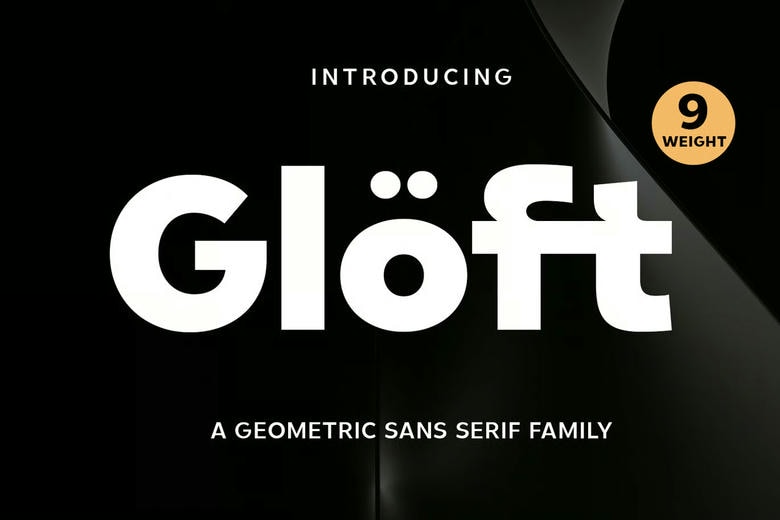
Gloft Font Family
Gloft Font Family – Geometric Sans Serif Font Family is a contemporary typeface style that is constructed on accuracy, balance and flexibility. Created to suit the needs of modern visual communication, Gloft gives an impression of a straightforward and confident image that is professional and eternal at the same time. Its geometrical design offers a good basis of designs that demand clarity and impact.
The font family has a total of nine well-designed weights that enable designers to easily blend in terms of their application in a variety of projects. Light and minimal layouts to big and powerful headlines, Gloft offers the flexibility and does not lose the consistency. The harmonization of each weight gives the visual equilibrium, and one can easily create powerful typographic hierarchies.
Gloft has clean lines and proportional letterforms that make it to be more readable and the messages to be passed are clear in both print and electronic media. Its performance is outstanding in branding, editorial design, UX/UI, and corporate materials where readability and accuracy is necessary. The geometry is not hard and seems refined which gives designs a smooth and accessible sound.
The italic styles add a hint of motion and expression to the font without compromise of the geometric integrity of the font. These italics provide emphasis and contrast without taking away the overall layout, and are suitable in highlights, quotes, or secondary text in complicated layouts.
Gloft Sans Serif Font Family